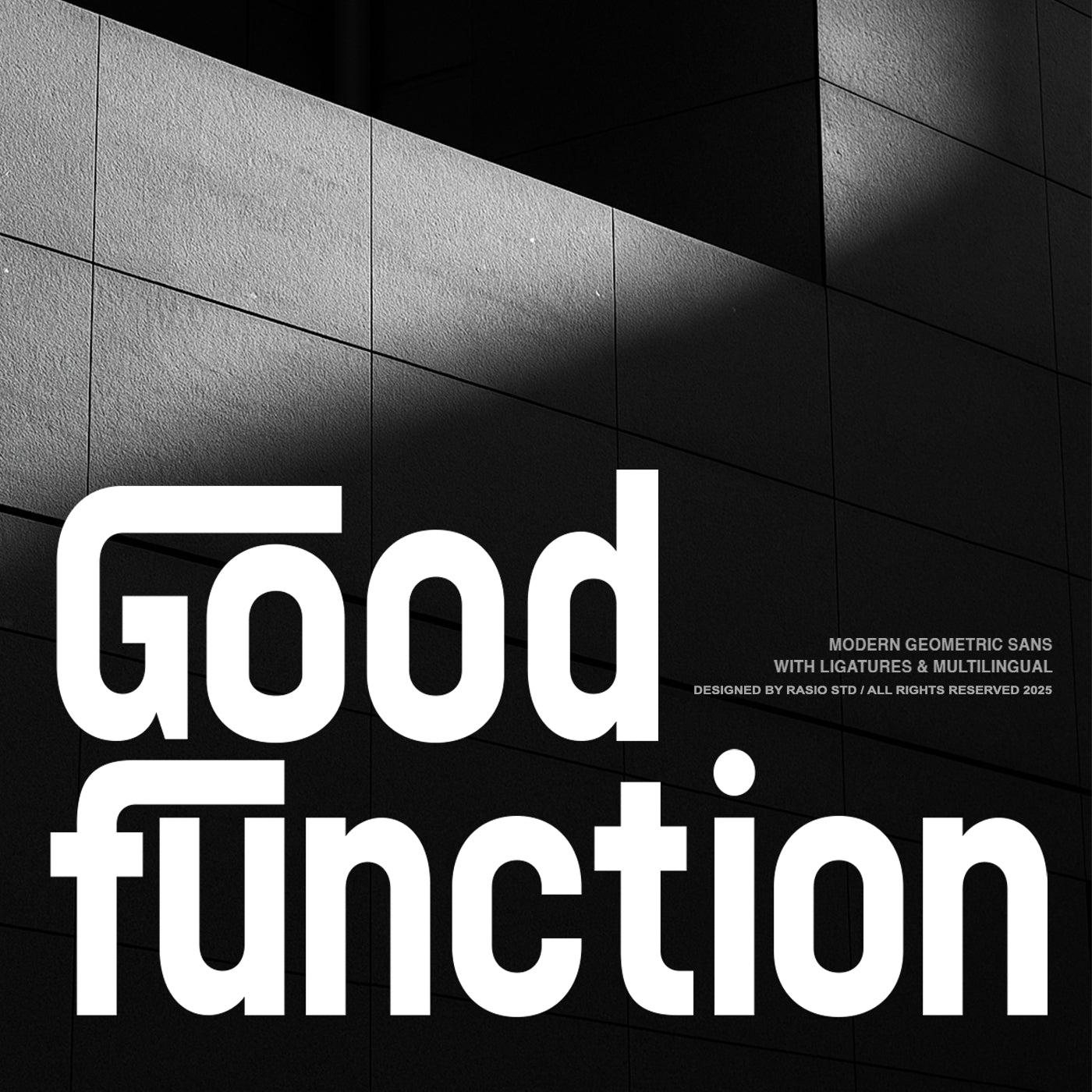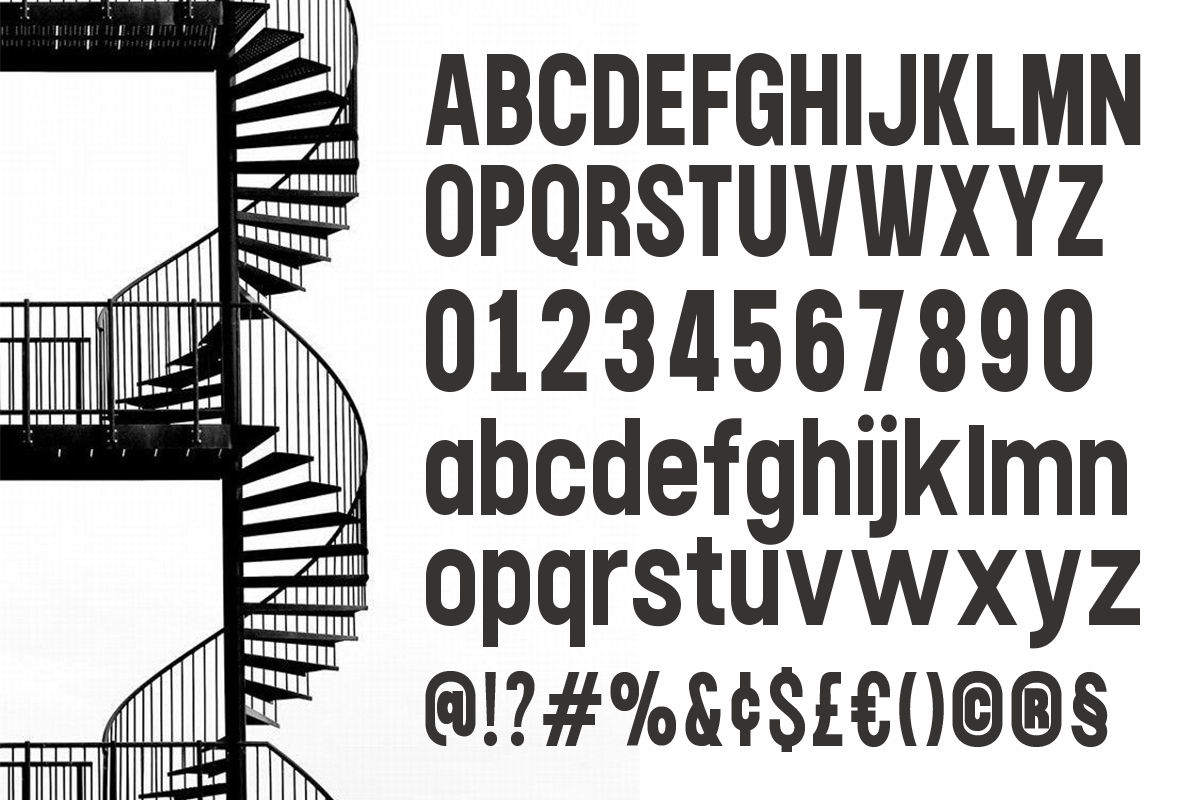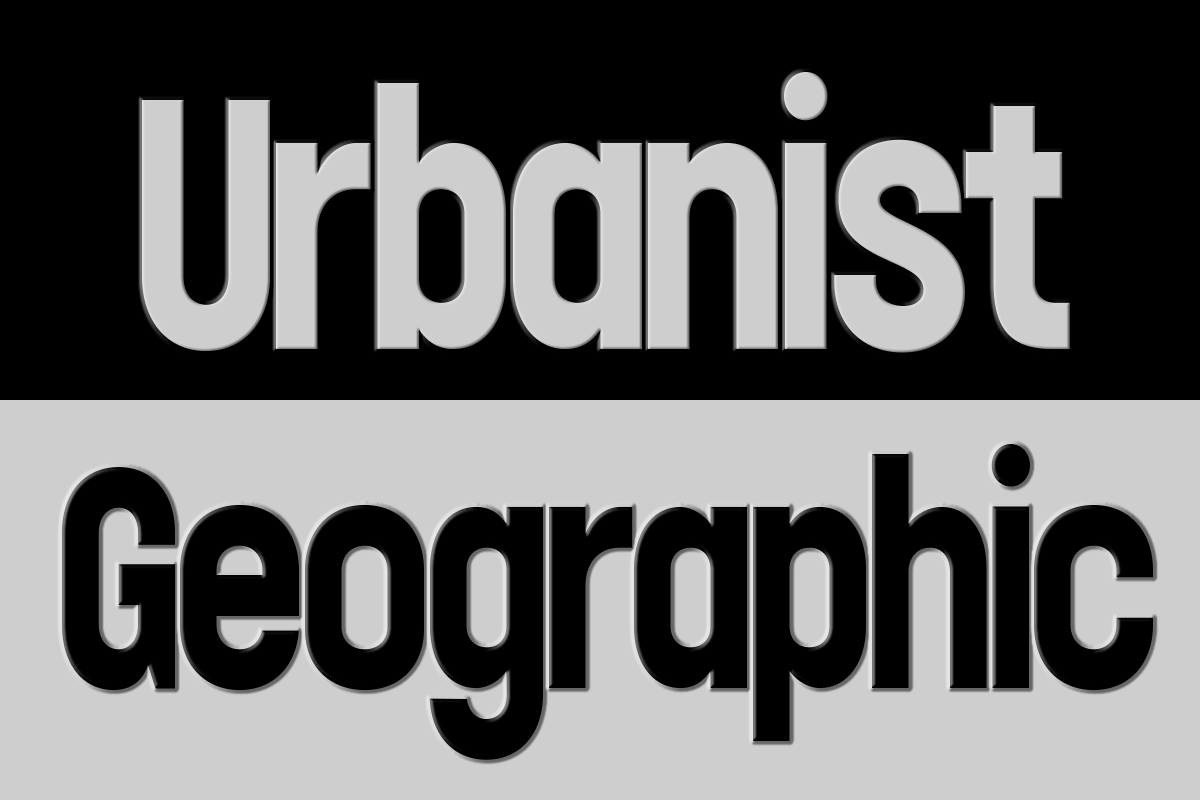
Good Function Modern Geometric Sans Font
Good Function Geometric Sans Font showcases the perfect fusion of modern precision and architectural balance. Its clean geometry, smooth curvature, and proportional structure reflect clarity, efficiency, and timeless functionality. This font captures the essence of minimalism while maintaining strong legibility for both digital and print media. Ideal for professional branding, editorial layouts, and tech-forward projects, Good Function delivers a confident and versatile visual presence that enhances every creative composition.
Relevance and Use Cases is perfect for corporate branding, editorial design, technology startups, web interfaces, app layouts, modern advertising, architecture portfolios, minimalist posters, and professional packaging projects that demand structural precision and clean modern aesthetics.
Numerals & Punctuation
Ligatures & Alternates